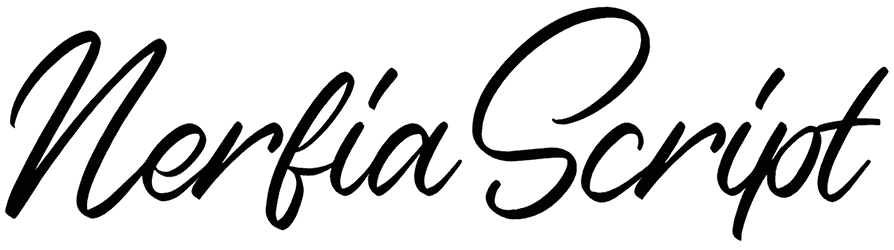
You must be aware that each font has its own special characteristic and a lovely script font such as Nerfia Script can bring a feeling of softness, dynamic, or viability to all of your content including book covers, business cards, diplomas, or social media posts. If crave to have another handwritten font the same as this one, our rich archive would be your survivor.